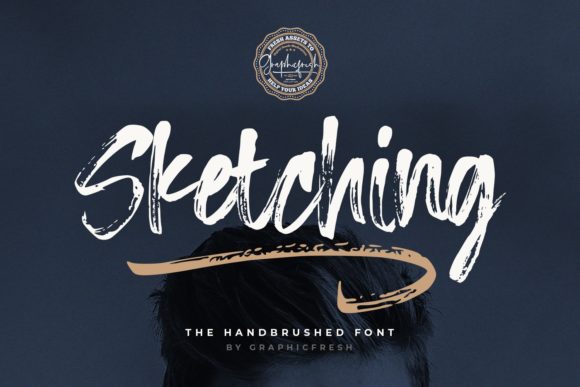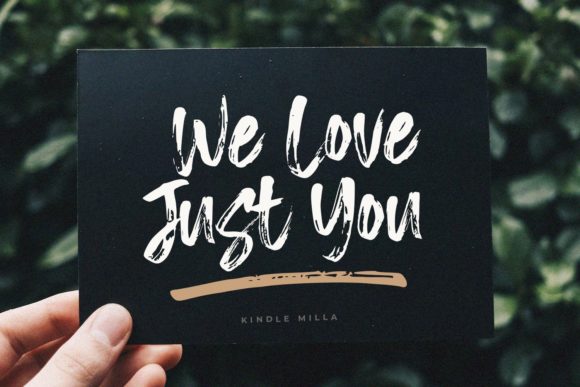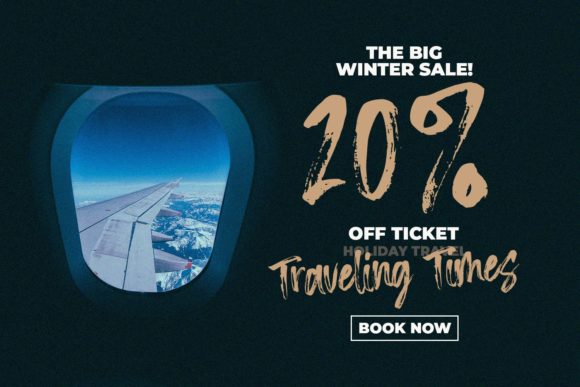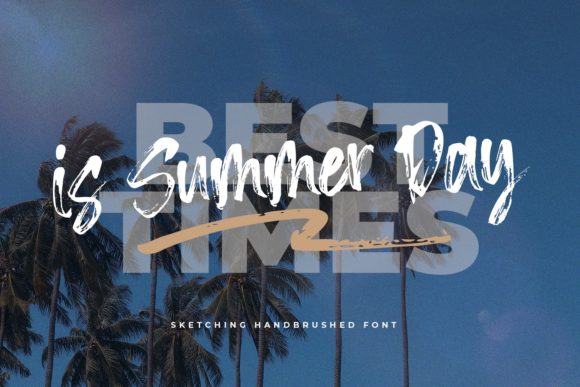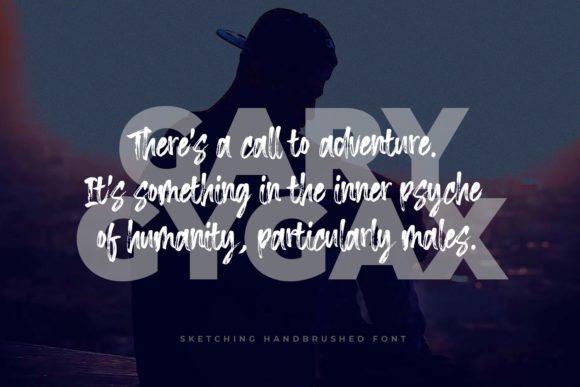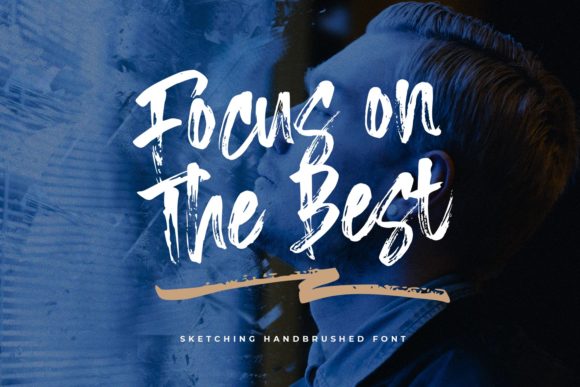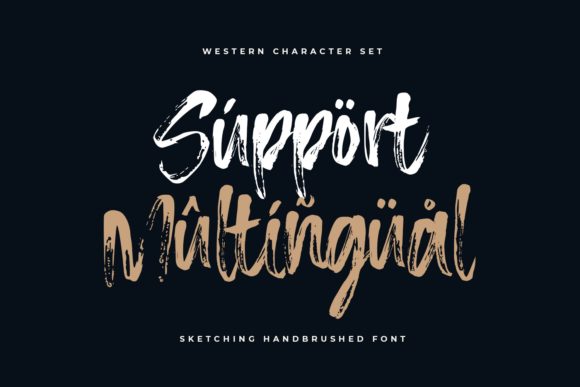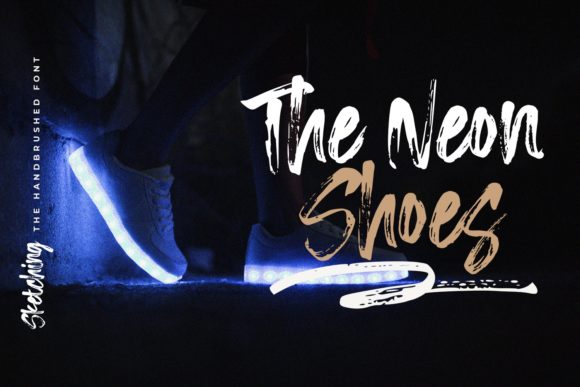
Sketching Font
About Sketching Font
Sketching is a handbrushed script font. It has an authentic look and beautiful swashes that will take your designs to the next level!